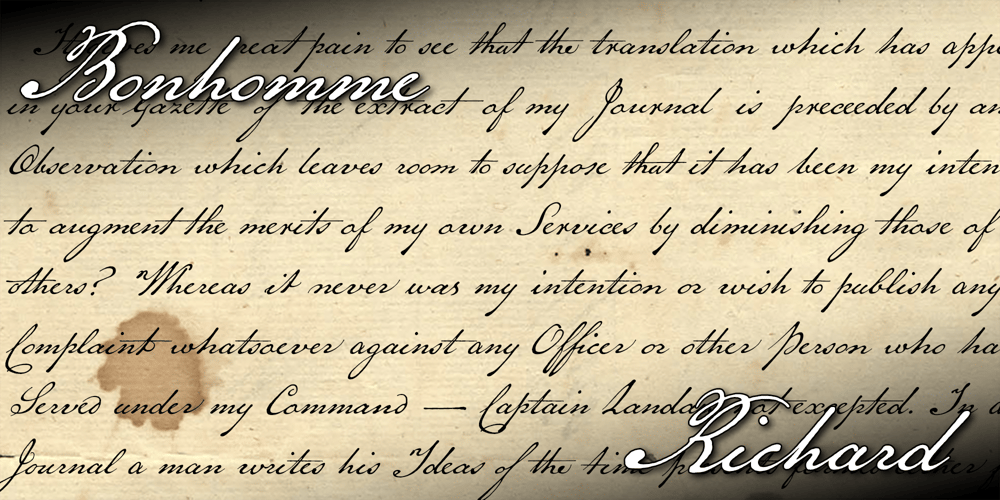
Bonhomme Richard Font Family was designed by Brian Willson and published by Three Islands Press. Bonhomme Richard contains 1 styles and family package options. Bonhomme Richard evokes the cursive penmanship of Chevalier John Paul Jones (1747–1792), celebrated Continental Navy commander during the American Revolution, in letters from the late 18th century. The font’s name comes from Jones’s famous frigate, lost during his victorious engagement with the British in the Battle of Flamborough Head in 1779. During this battle Jones is said to have exclaimed, when urged to surrender, “I have not yet begun to fight!” (In fact, his likely words were, “I may sink, but I’ll be damned if I strike!” – i.e., surrender.) A legible script, Bonhomme Richard has an elegance about it while also conjuring the colonial era of its source material. Use to simulate historical handwriting in film props, games, formal invitations, product labels, and the like.